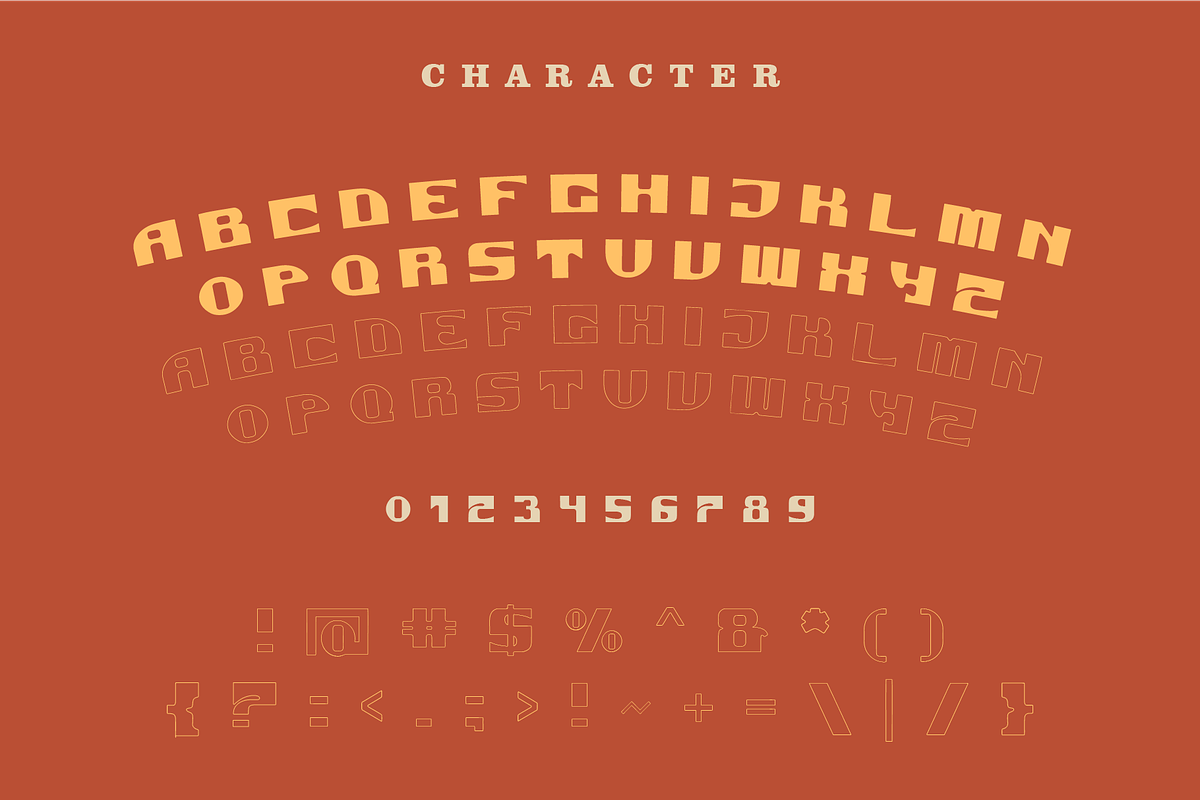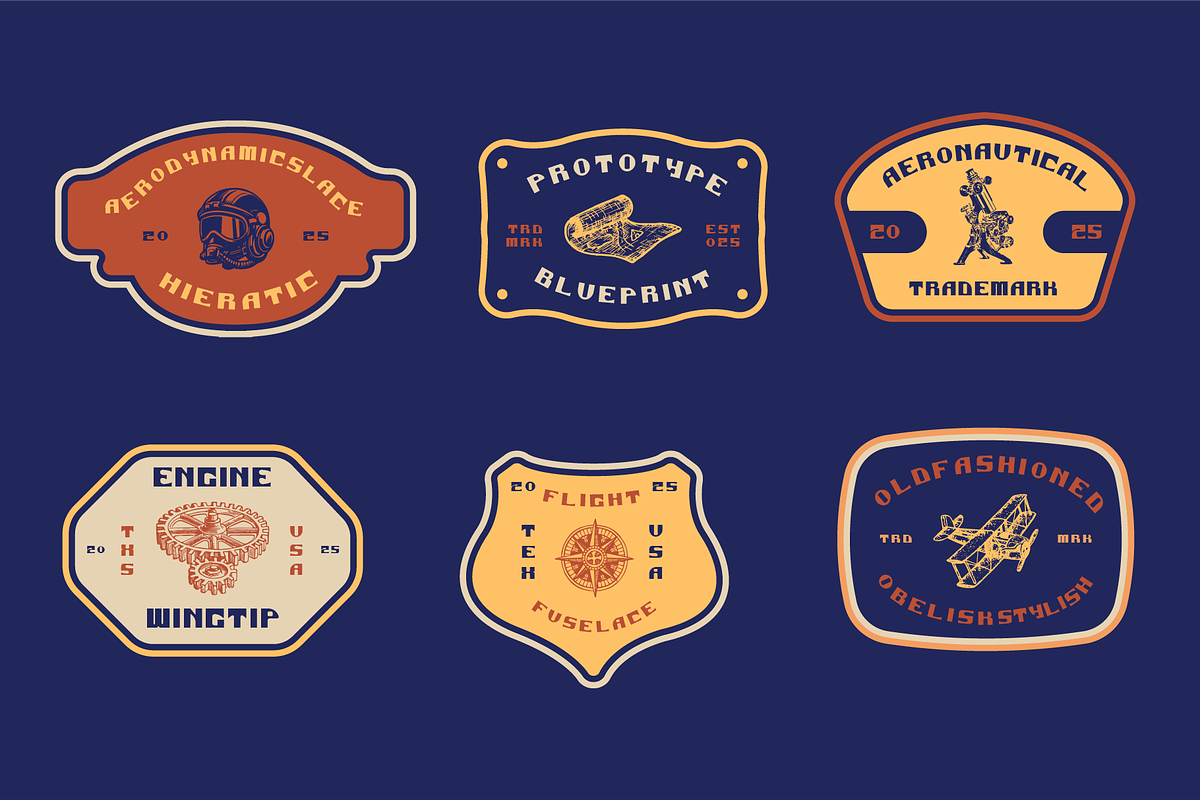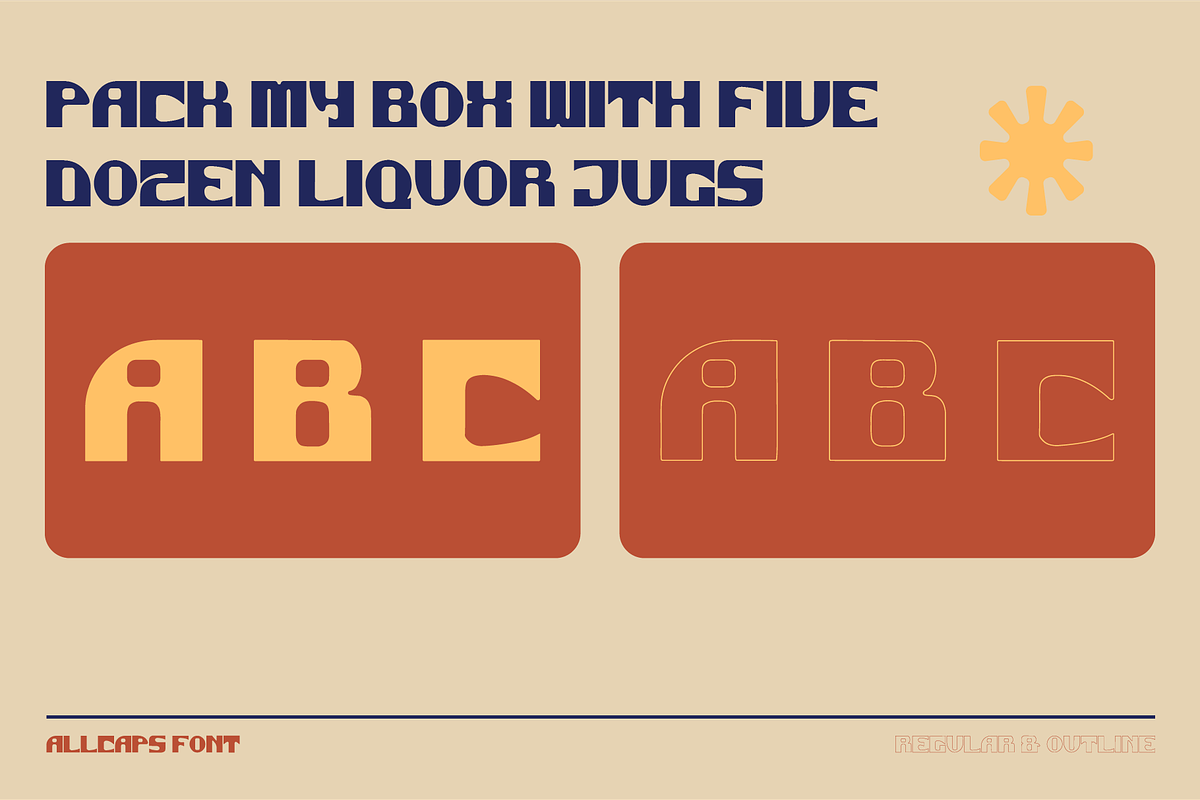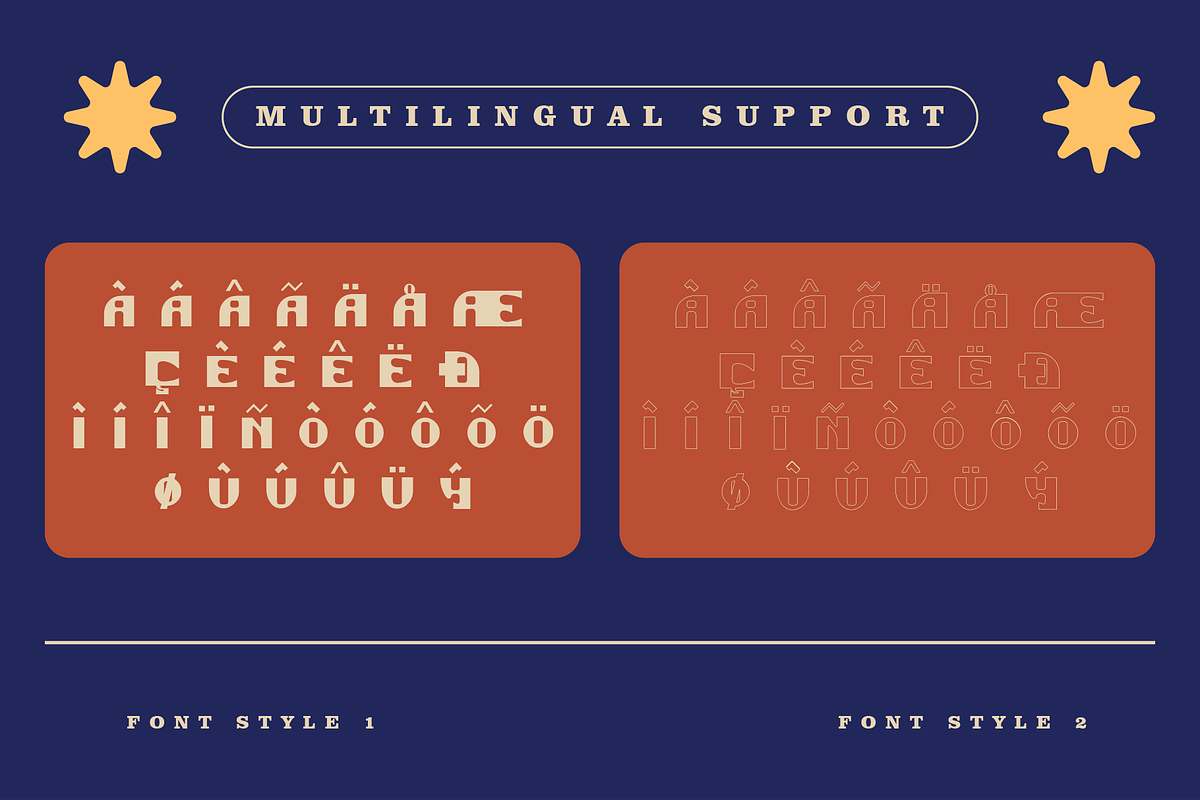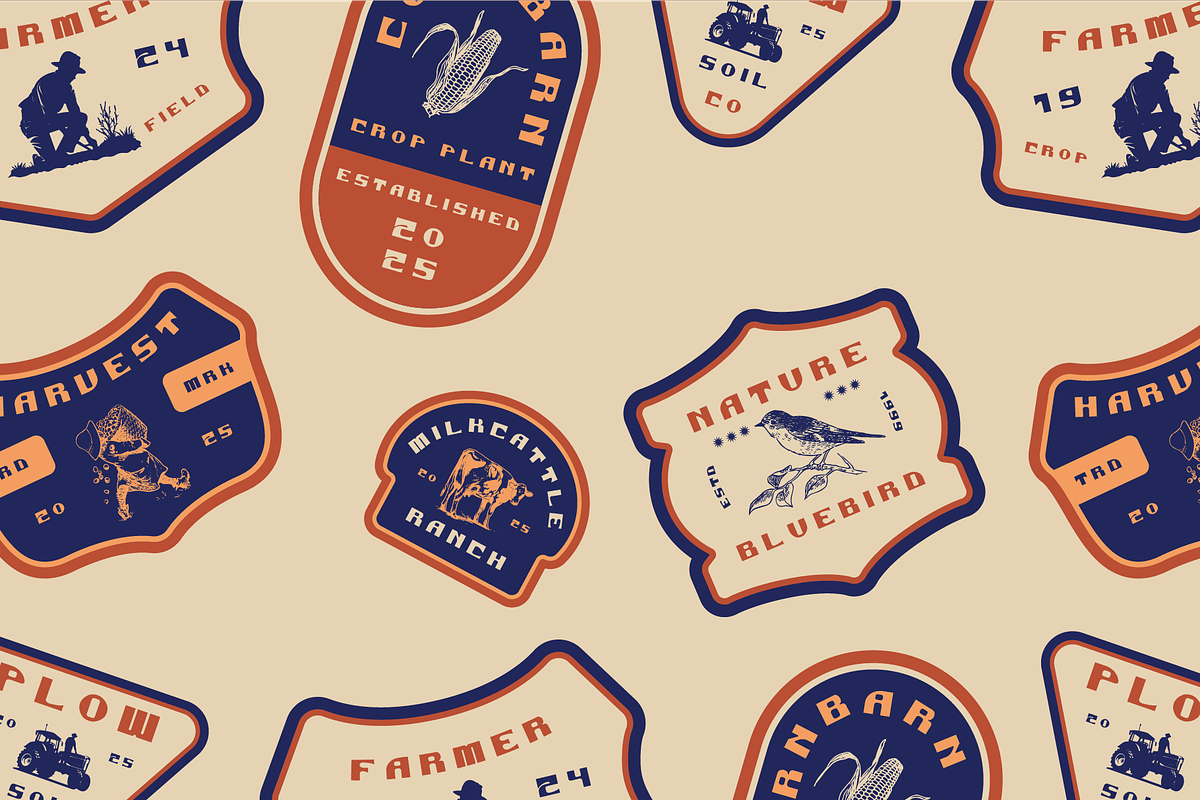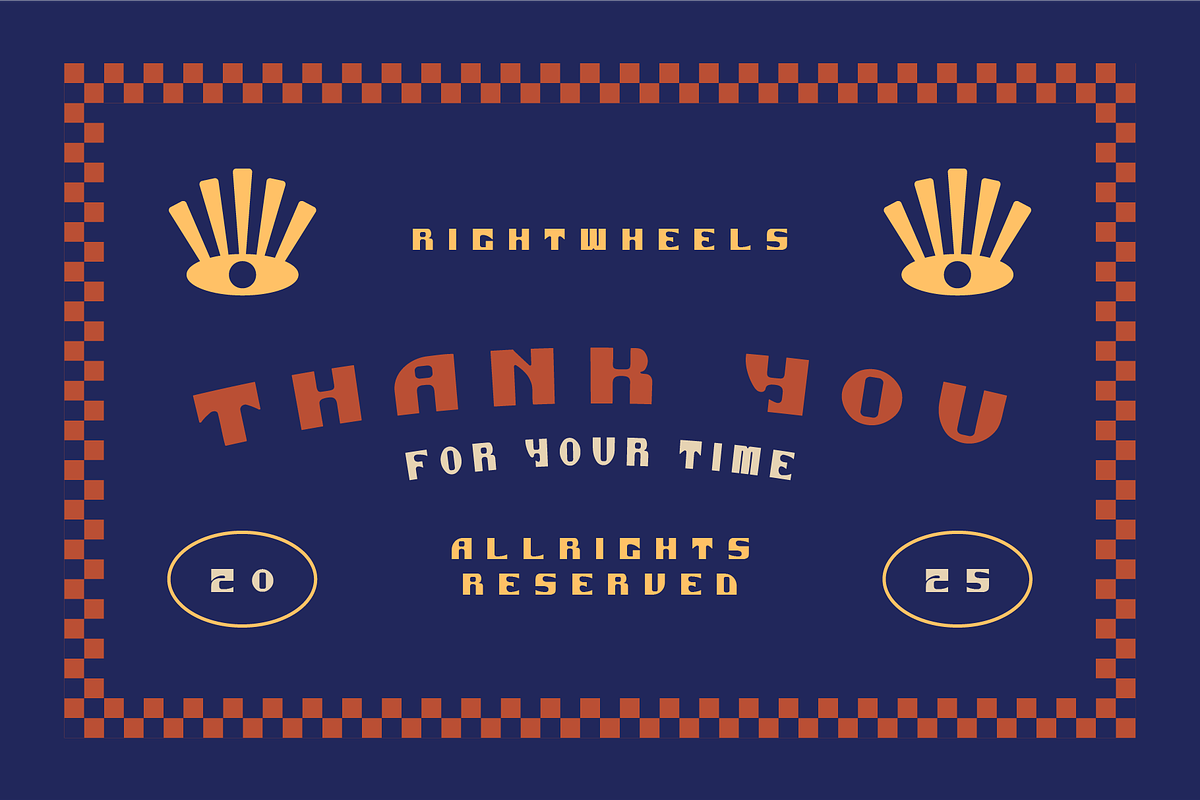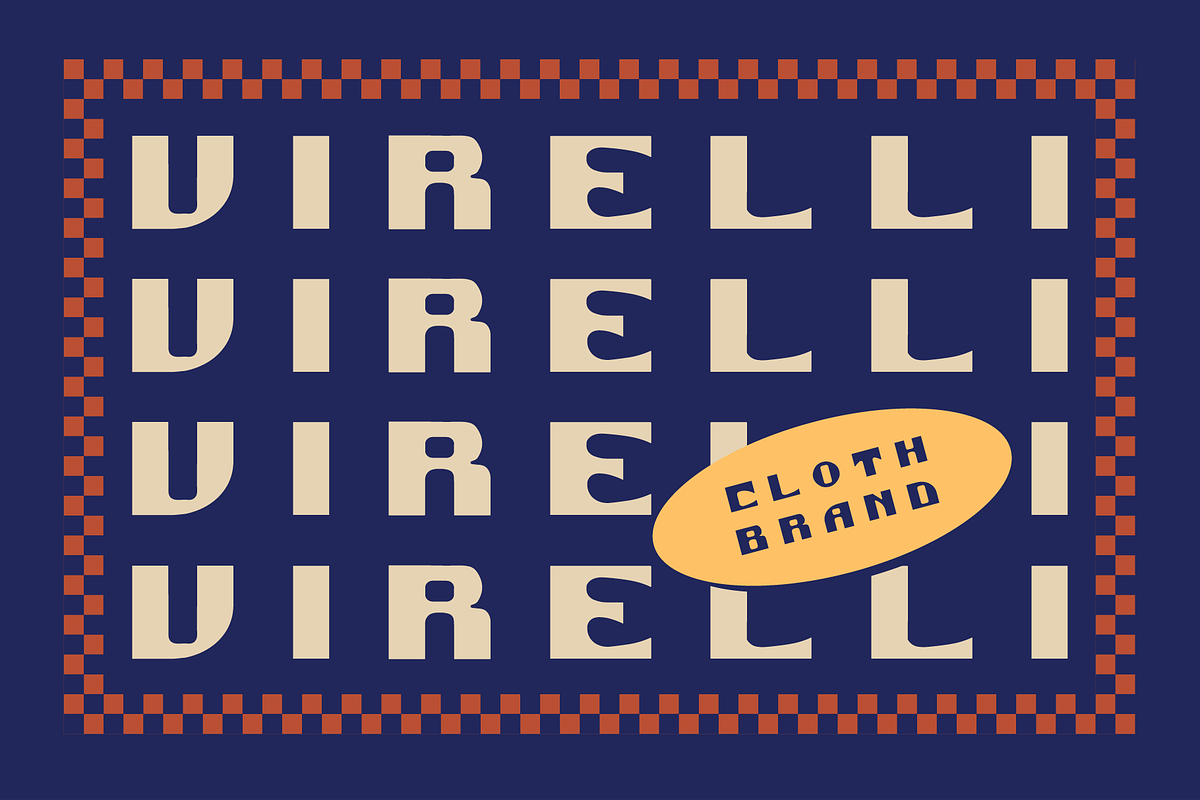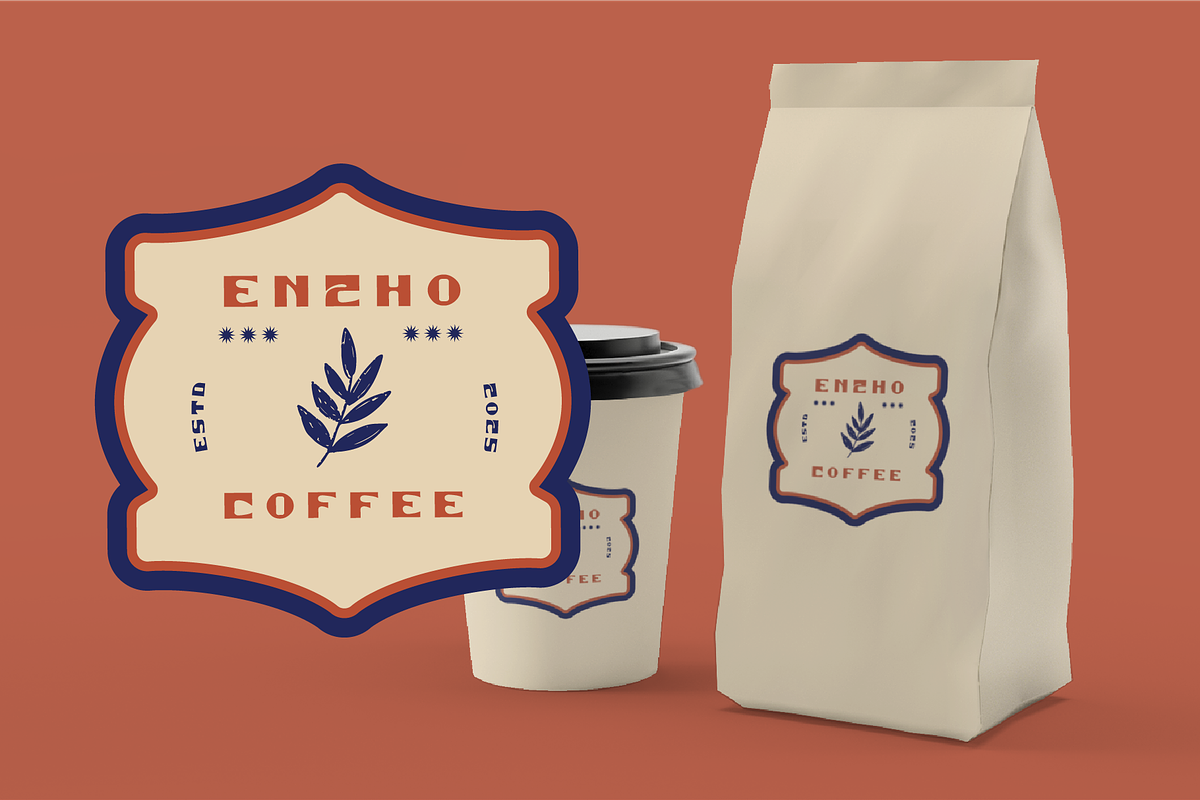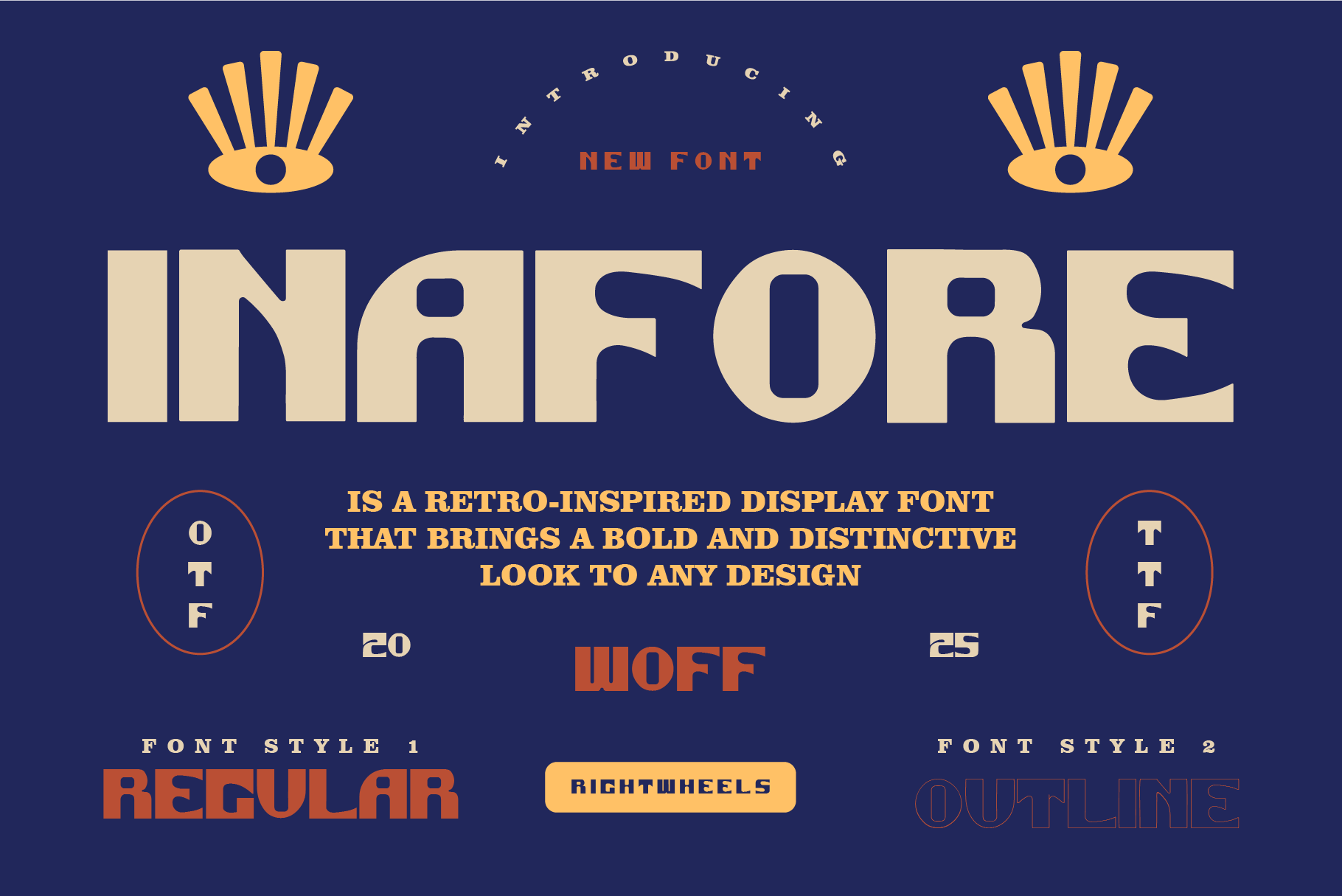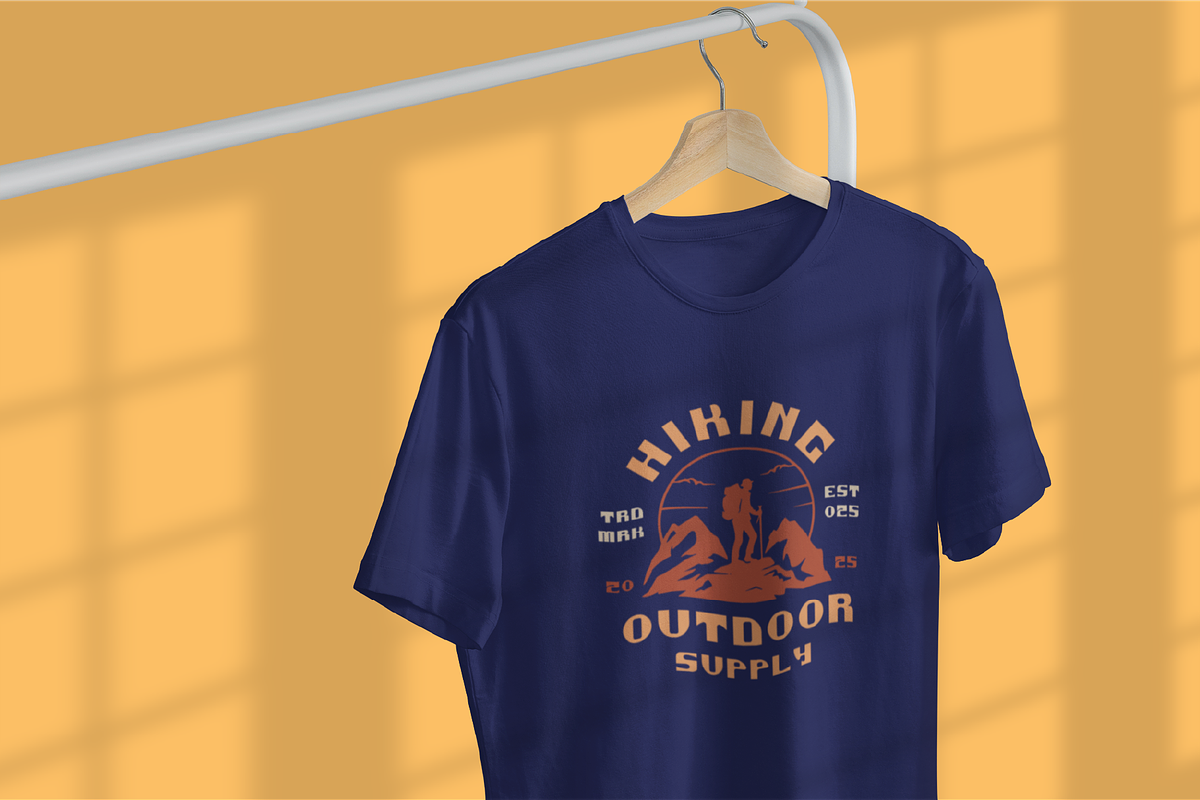
INAFORE - Retro Display Font
INAFORE is a retro-inspired display font that brings a bold and distinctive look to any design. With its sharp edges and vintage charm, it embodies the spirit of classic typography while maintaining a contemporary edge. Ideal for titles, logos, and headlines, INAFORE makes a strong statement in any project that seeks to blend nostalgia with modern aesthetics. Its unique character set and playful structure make it perfect for projects that require a touch of retro flair and creative boldness.